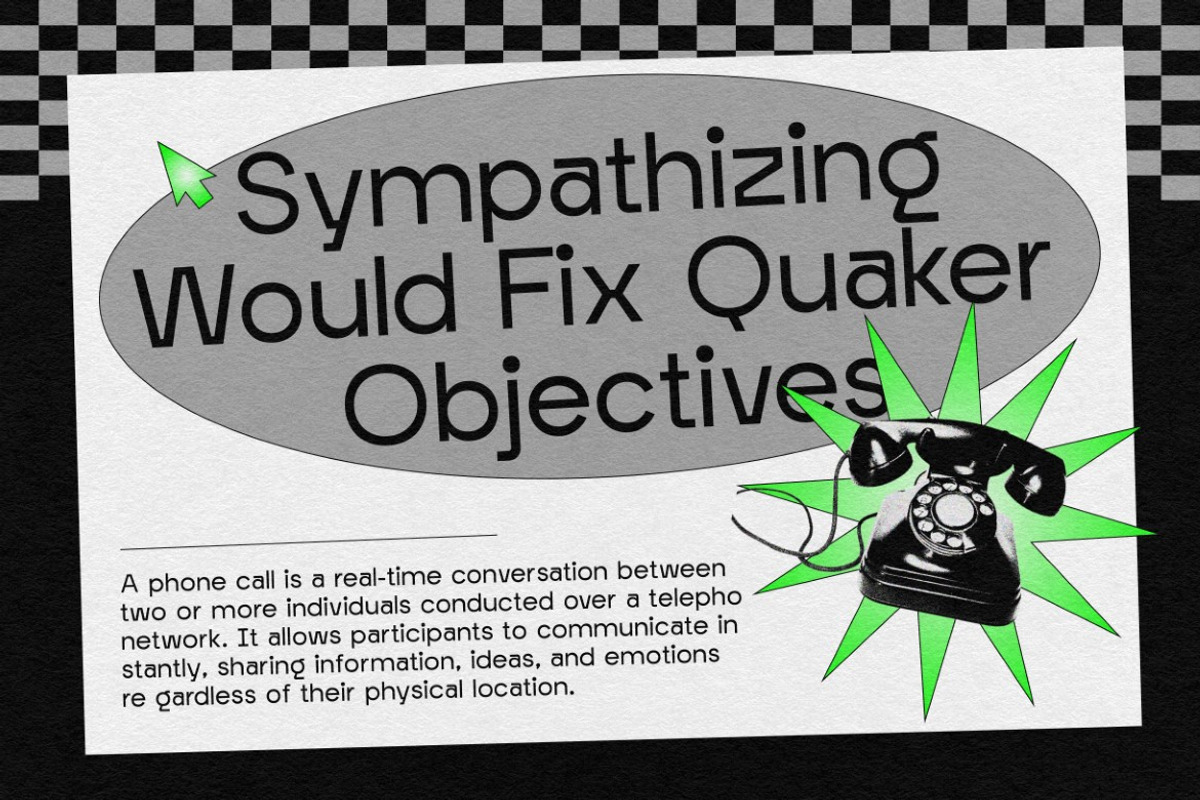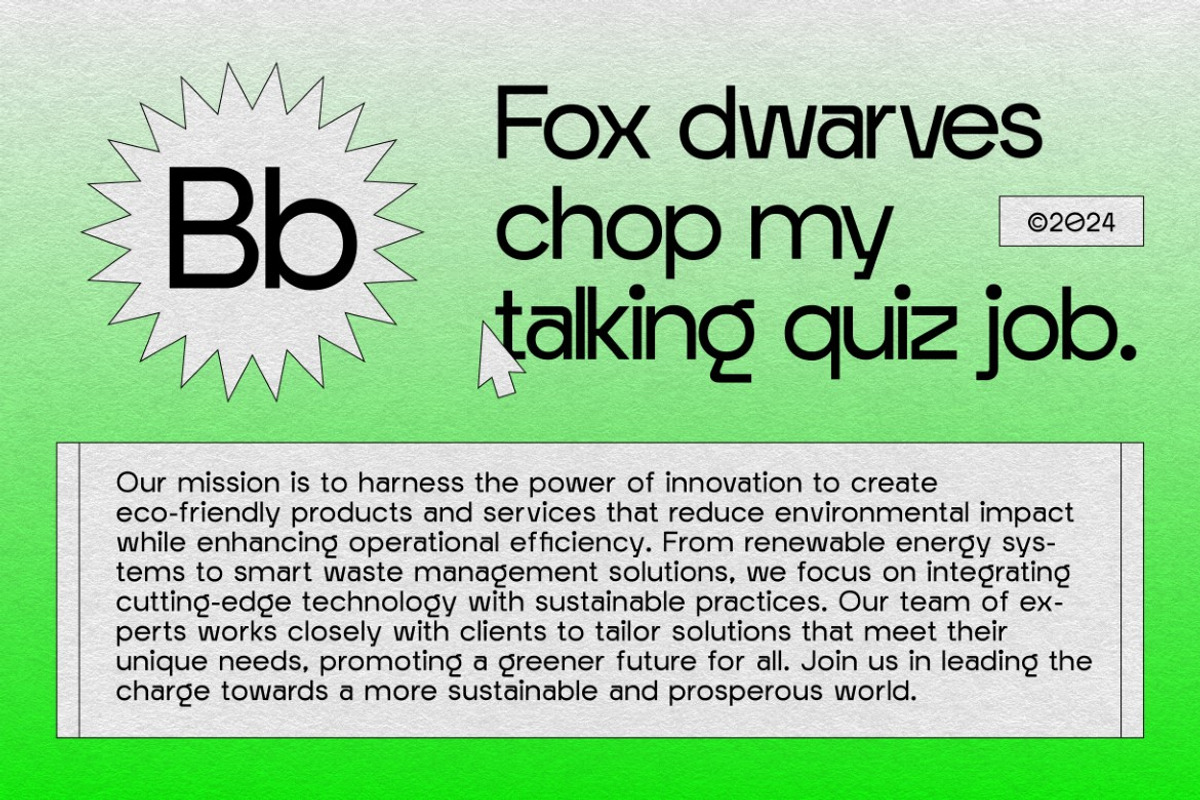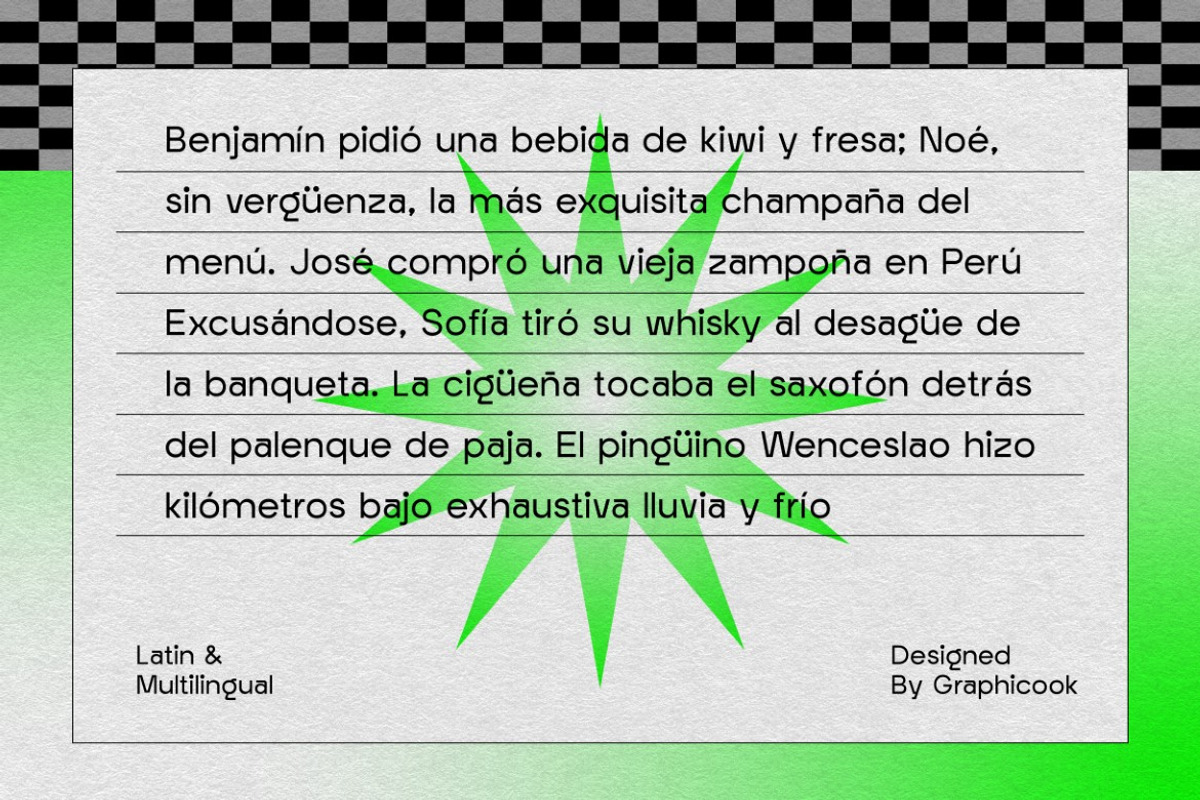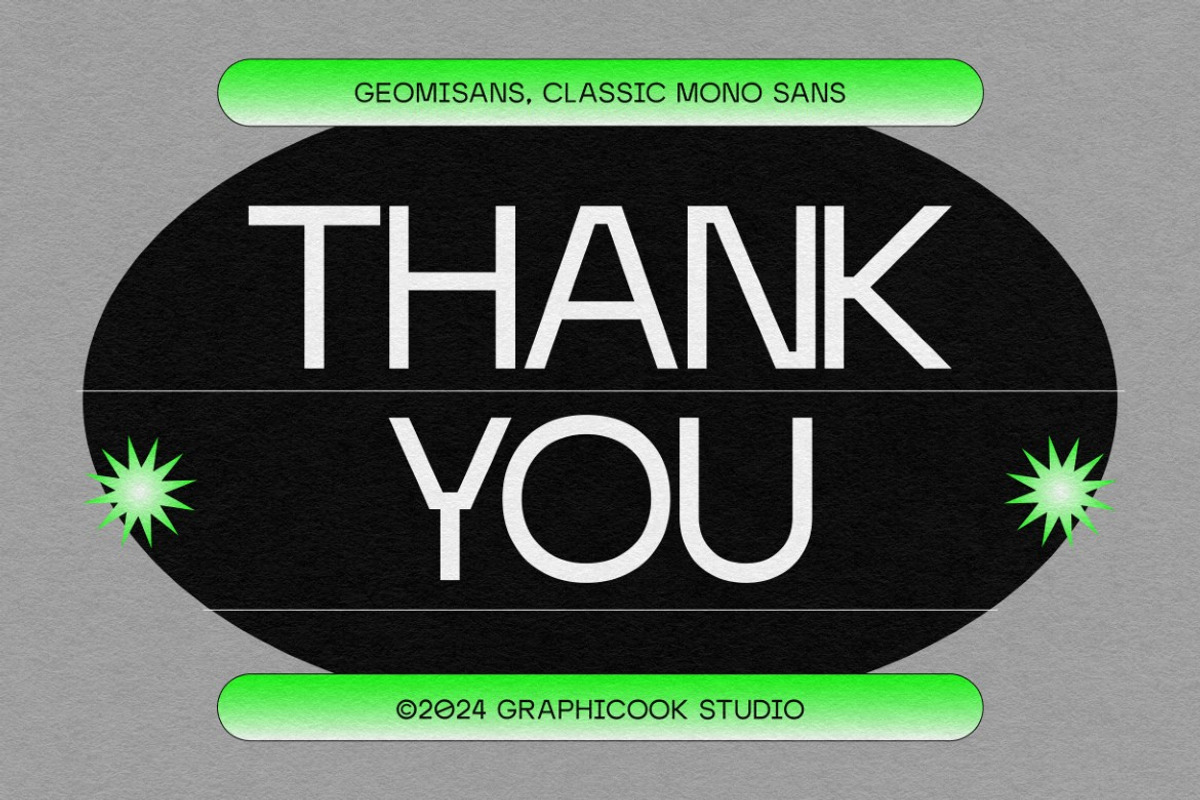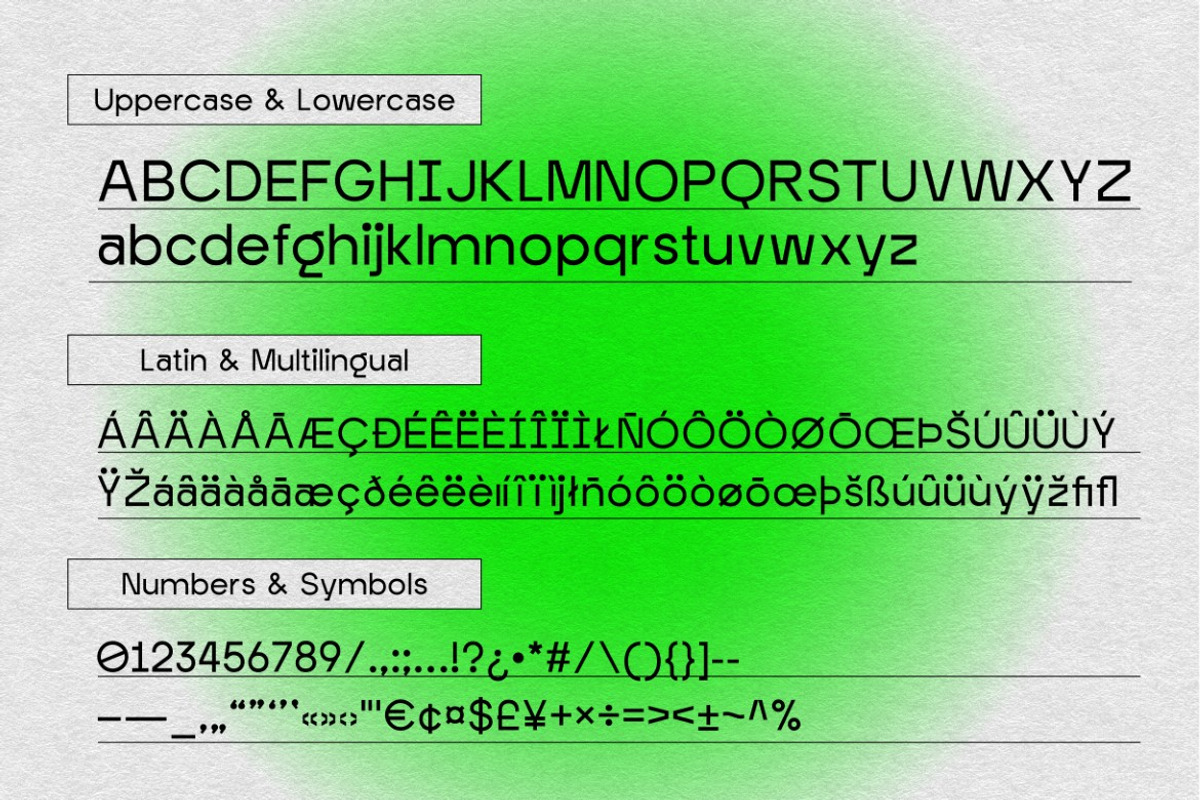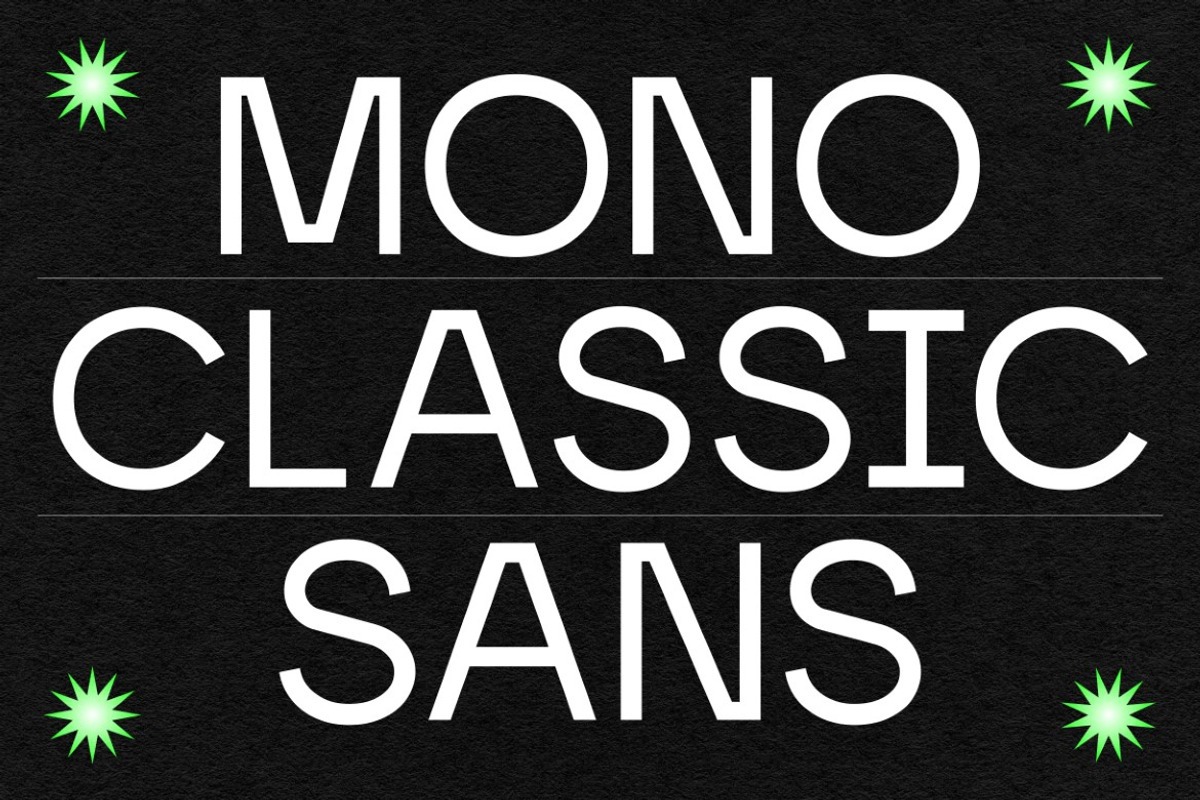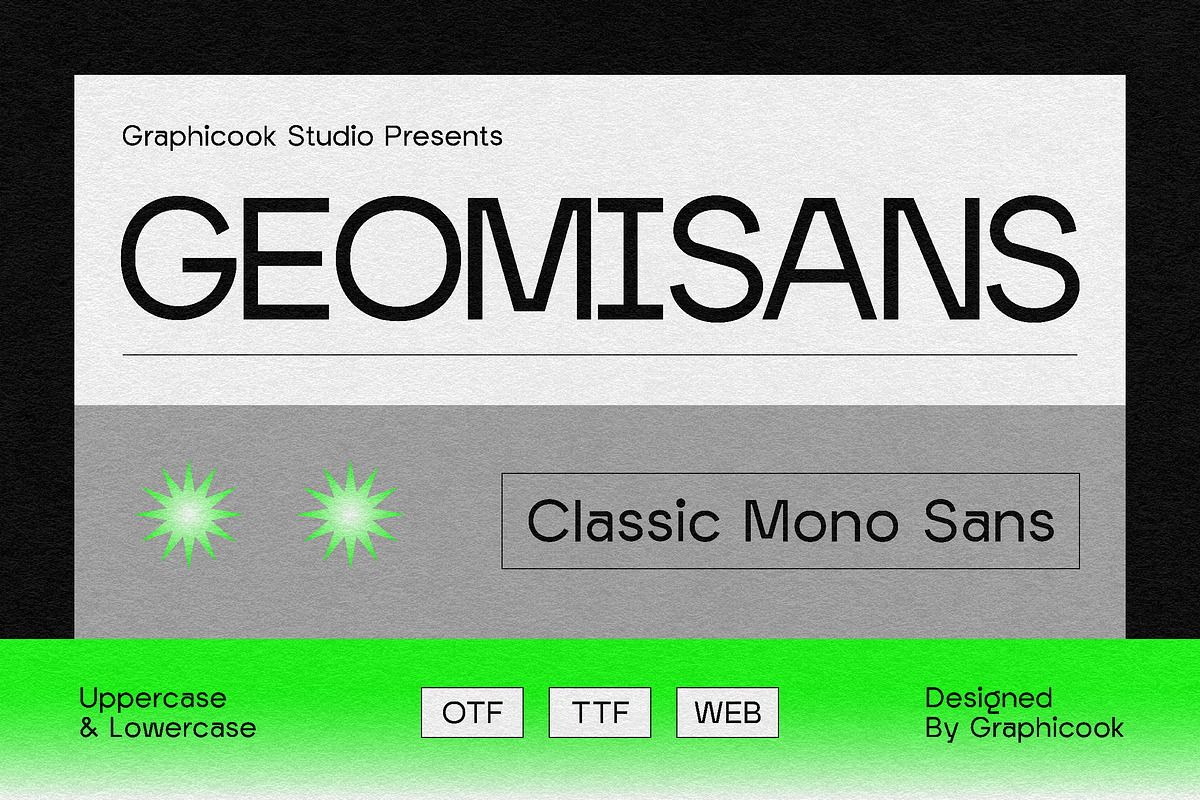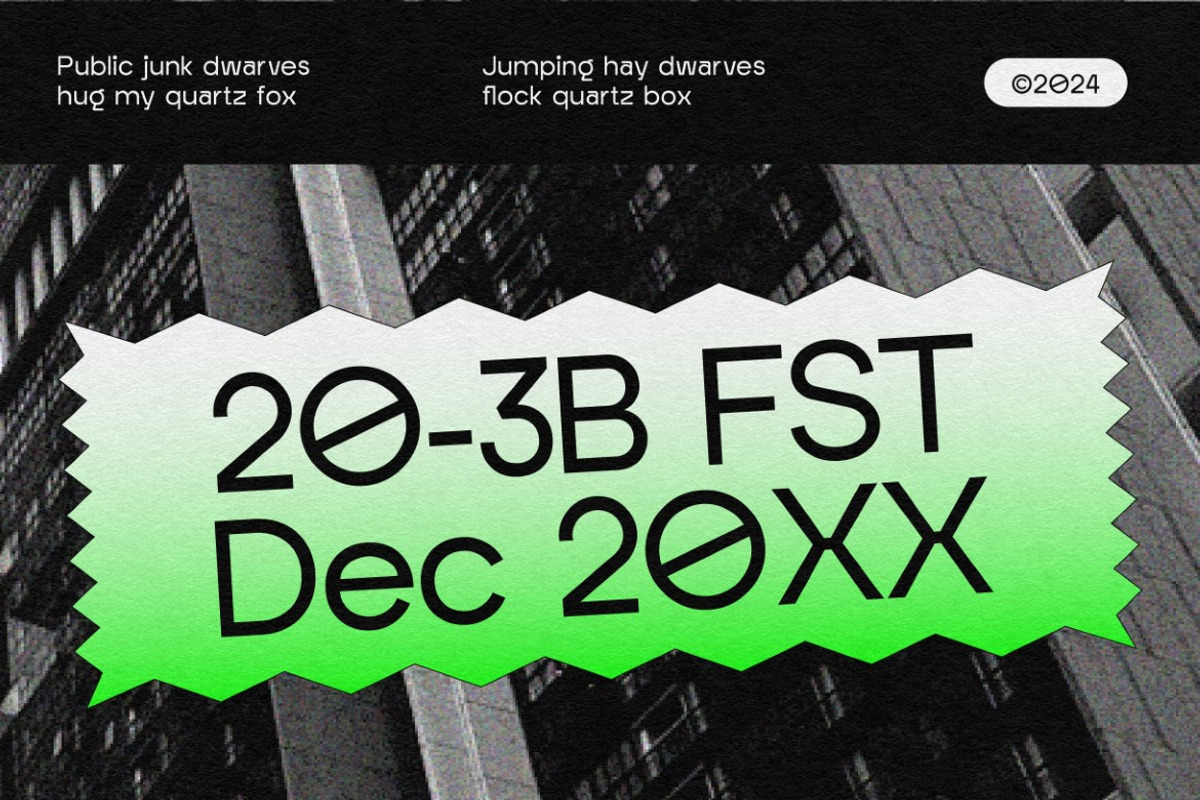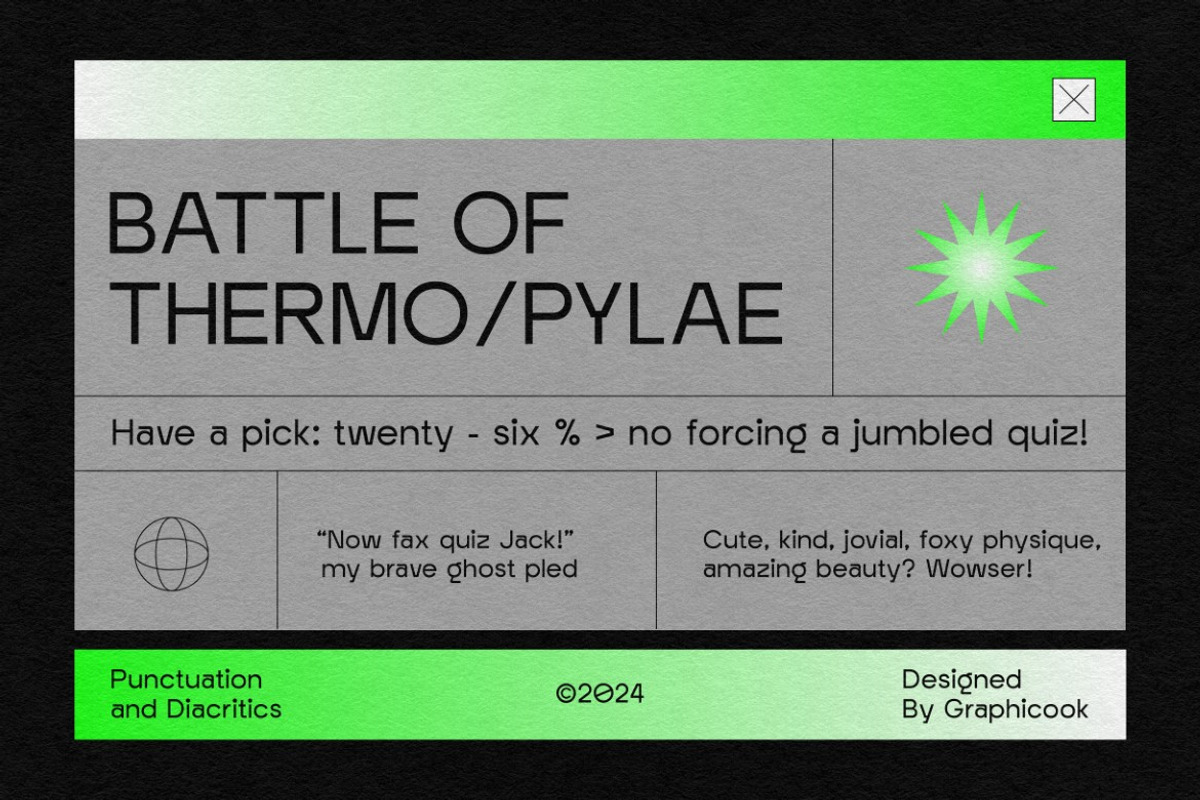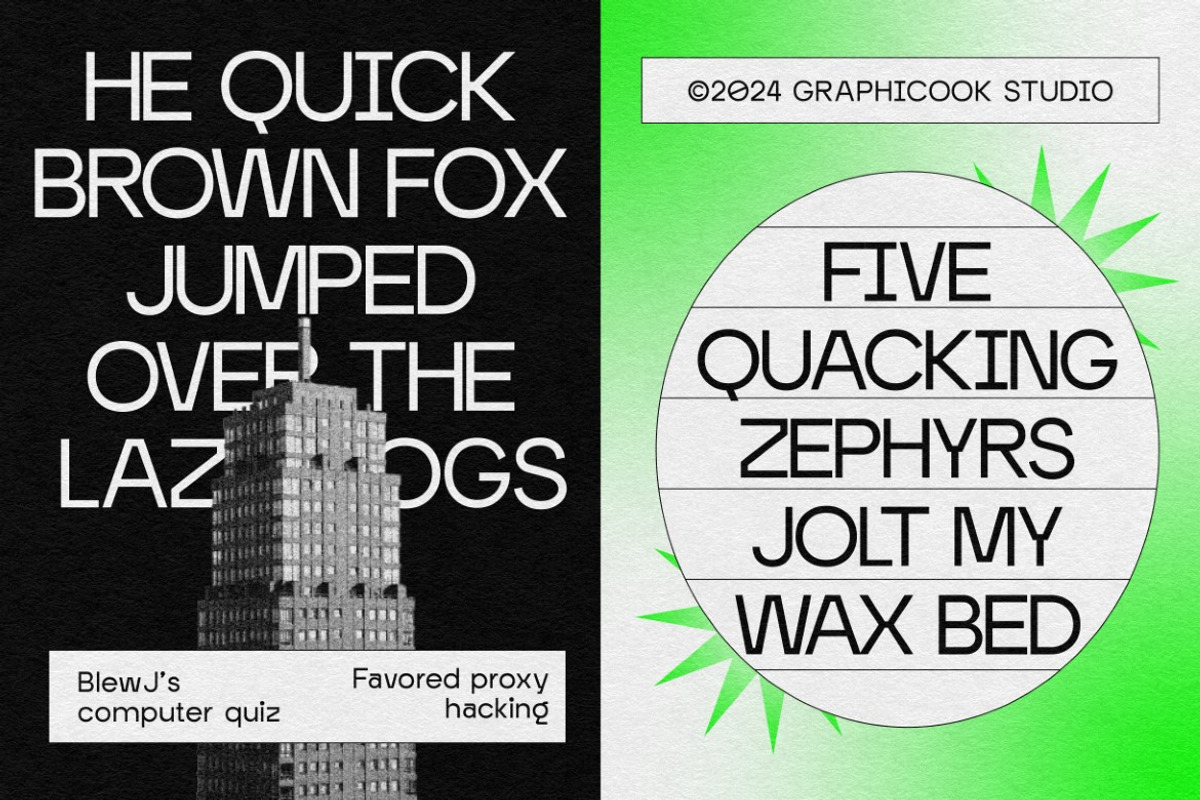
Geomisans
Introducing Geomisans! A classic mono sans font packed with grotesque style. Its versatility makes it perfect for all types of design projects
Geomisans is perfect for headlines, logotypes, magazines, packaging, quotes, movies, games, cover albums, book covers, and flyers, it's a perfect solution for creating eye-catching designs that stand out in any context.